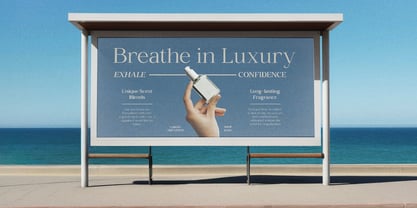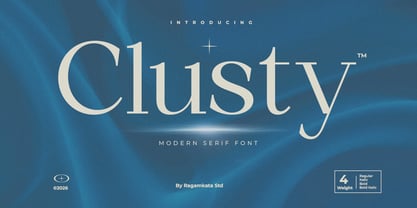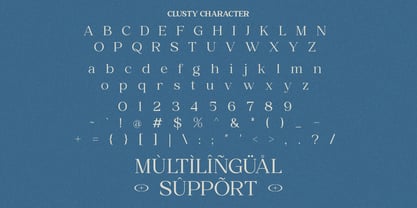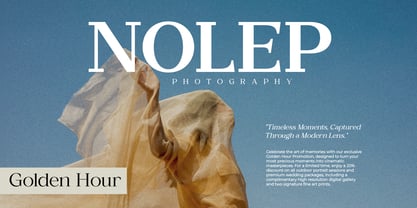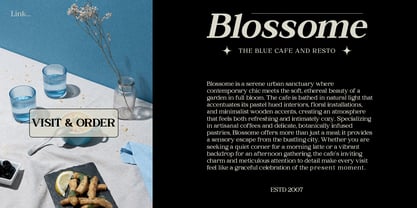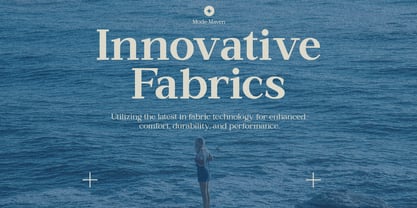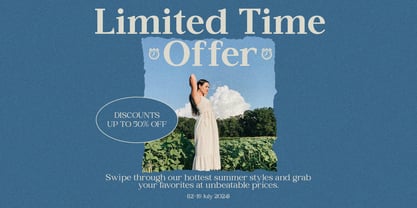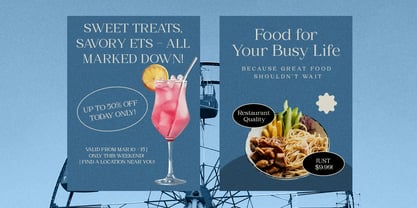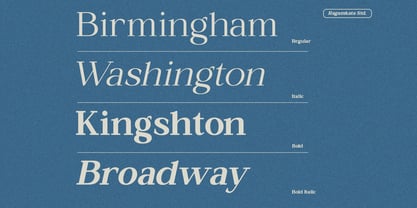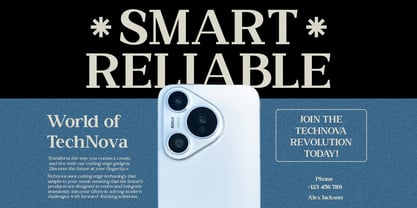
Clusty
by RagamKata
The Clusty Font Family was designed by Yogiswhara Dio Prakoso Riadi and published by RagamKata. Clusty contains 4 styles and family package options. More about this family
Clusty is a modern serif font that seamlessly blends elegance with a soft contemporary touch. Its refined curves and graceful letterforms provide a calm yet sophisticated presence in any design. With a balanced structure, Clusty ensures excellent readability, making it perfect for high-end creative work. This font is ideal for branding, editorial layouts, beauty campaigns, and luxury packaging, adapting effortlessly to various design needs. The subtle contrast in its strokes creates a stylish and polished aesthetic, making it particularly effective for headlines, logos, and elegant typography compositions. Clusty offers multiple weights and italic styles, providing versatility for designers aiming to create harmonious and expressive visuals. Whether you're developing a modern brand identity or crafting a premium editorial layout, Clusty leaves a timeless and graceful impression.